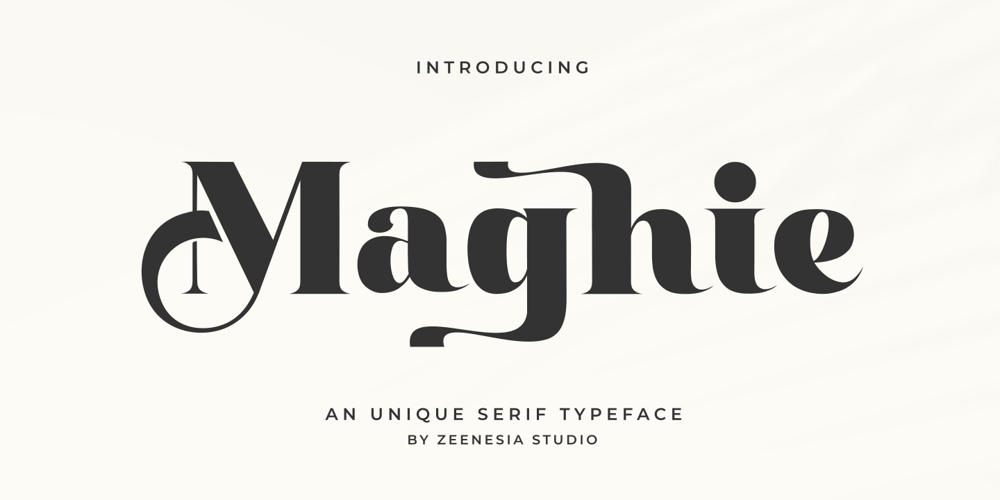
Maghie Font Family was designed by Doni Purwoko and published by Zeenesia Studio. Maghie contains 1 styles and family package options. Introducing Maghie.Maghie is a modern and unique sans serif font. Maghie is very versatile font that works great in large. well-suited for advertising, branding, logotypes, packaging, titles, headlines and editorial design. I created more much alternates variant and much natural ligatures to make this font very classy and look so beauty. Vintage Mango was built with open type features make your project will be perfect.We hope you enjoy the font, please feel free to comment if you have any thoughts or feedback.Thanks for purchasing and glad to help you!